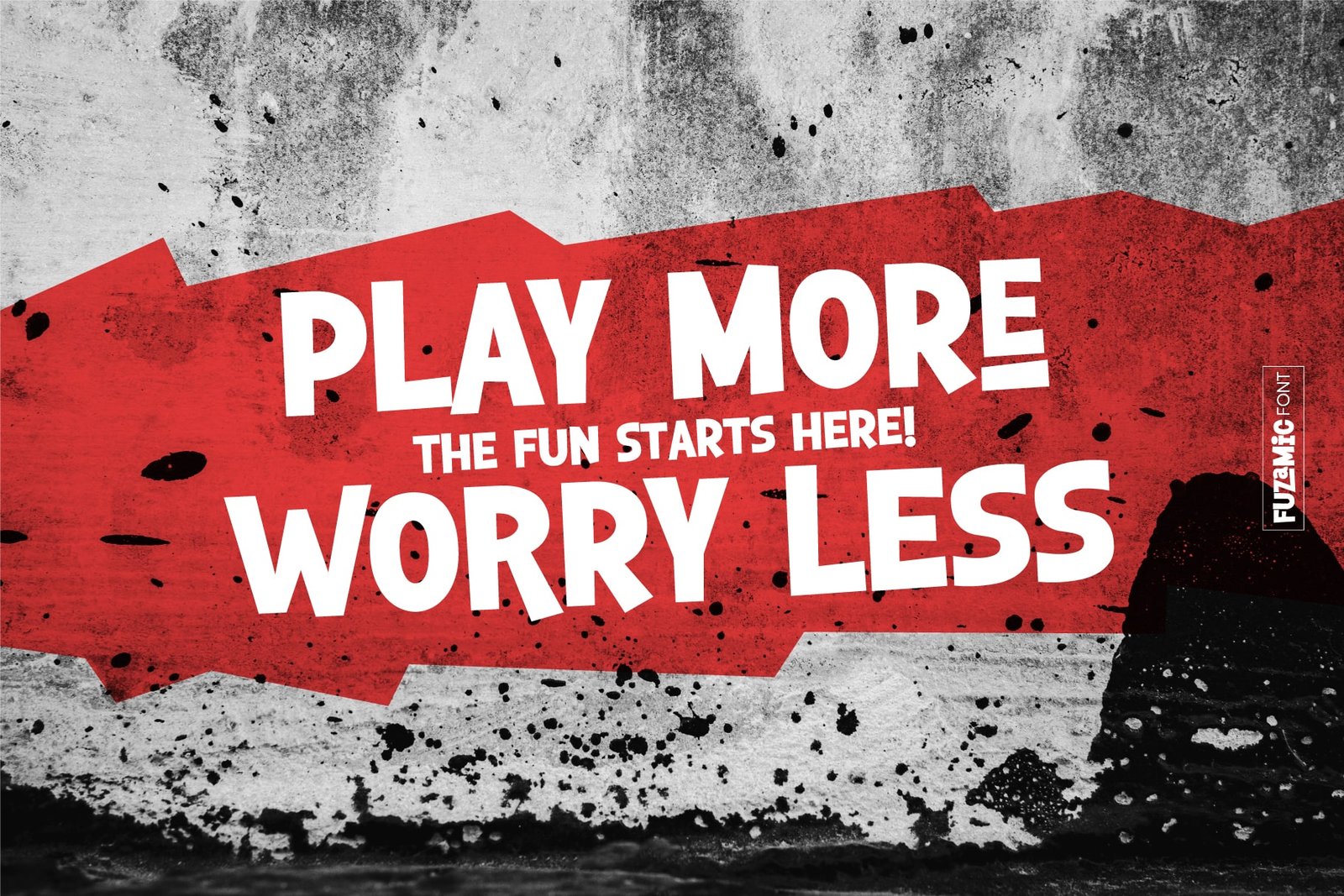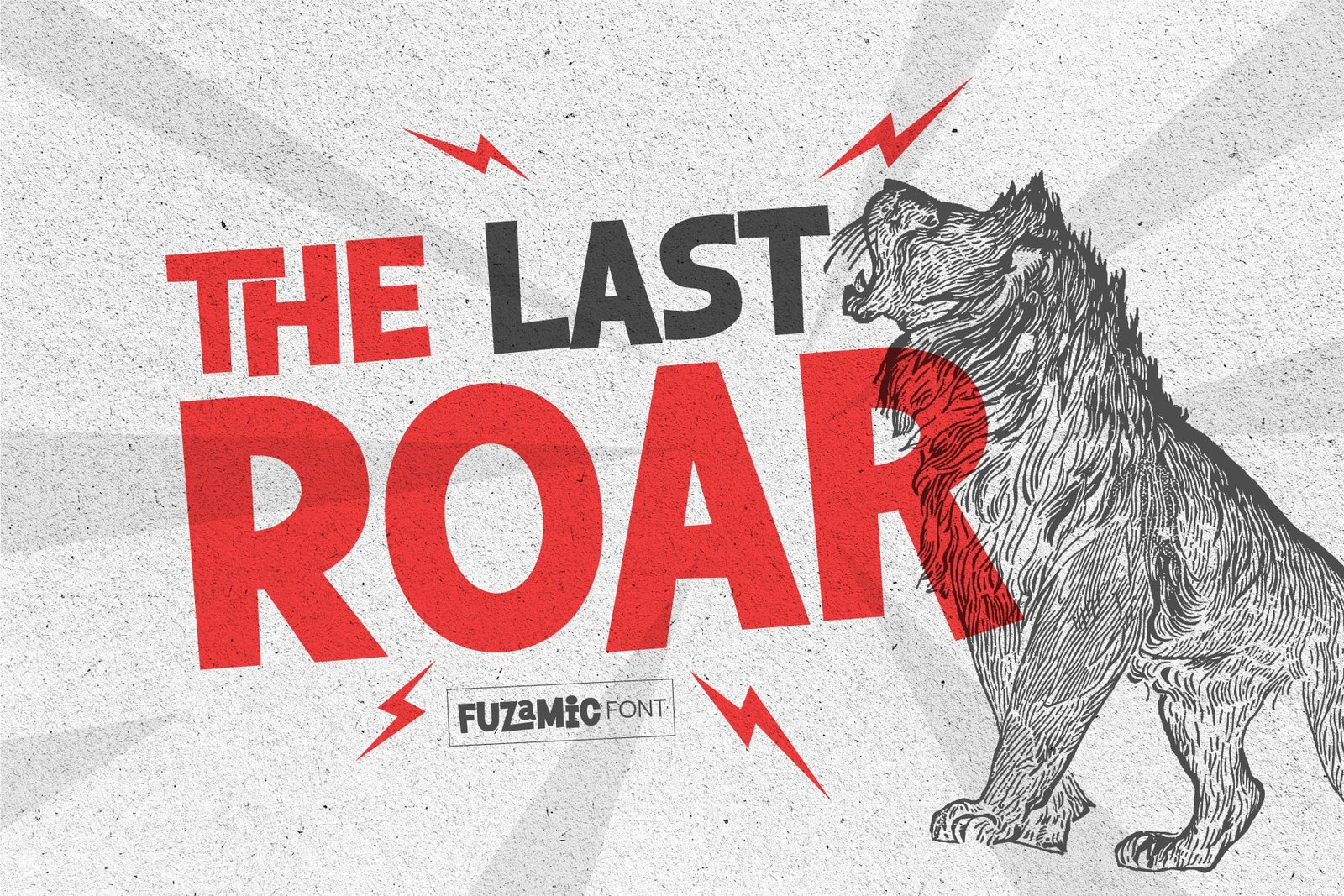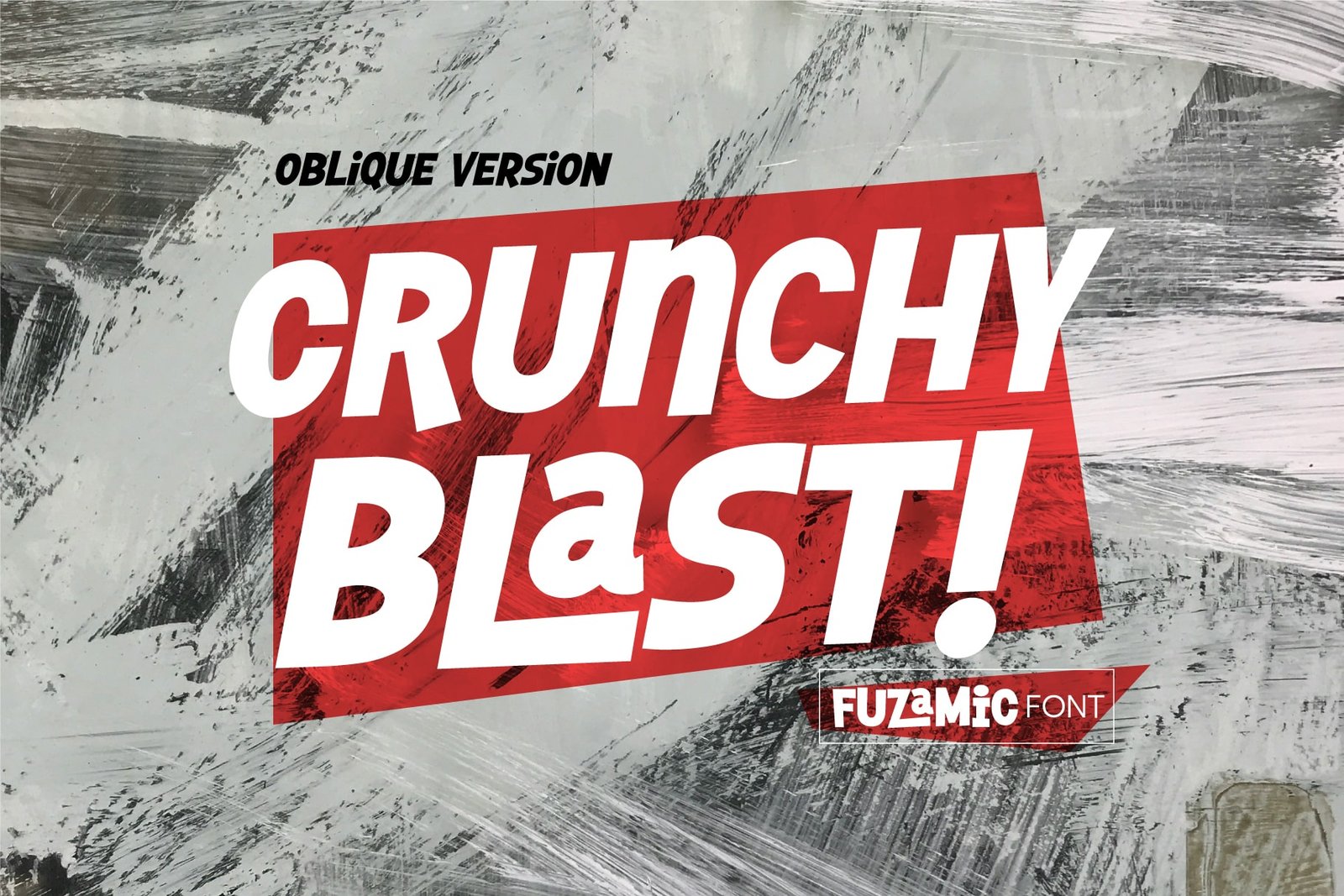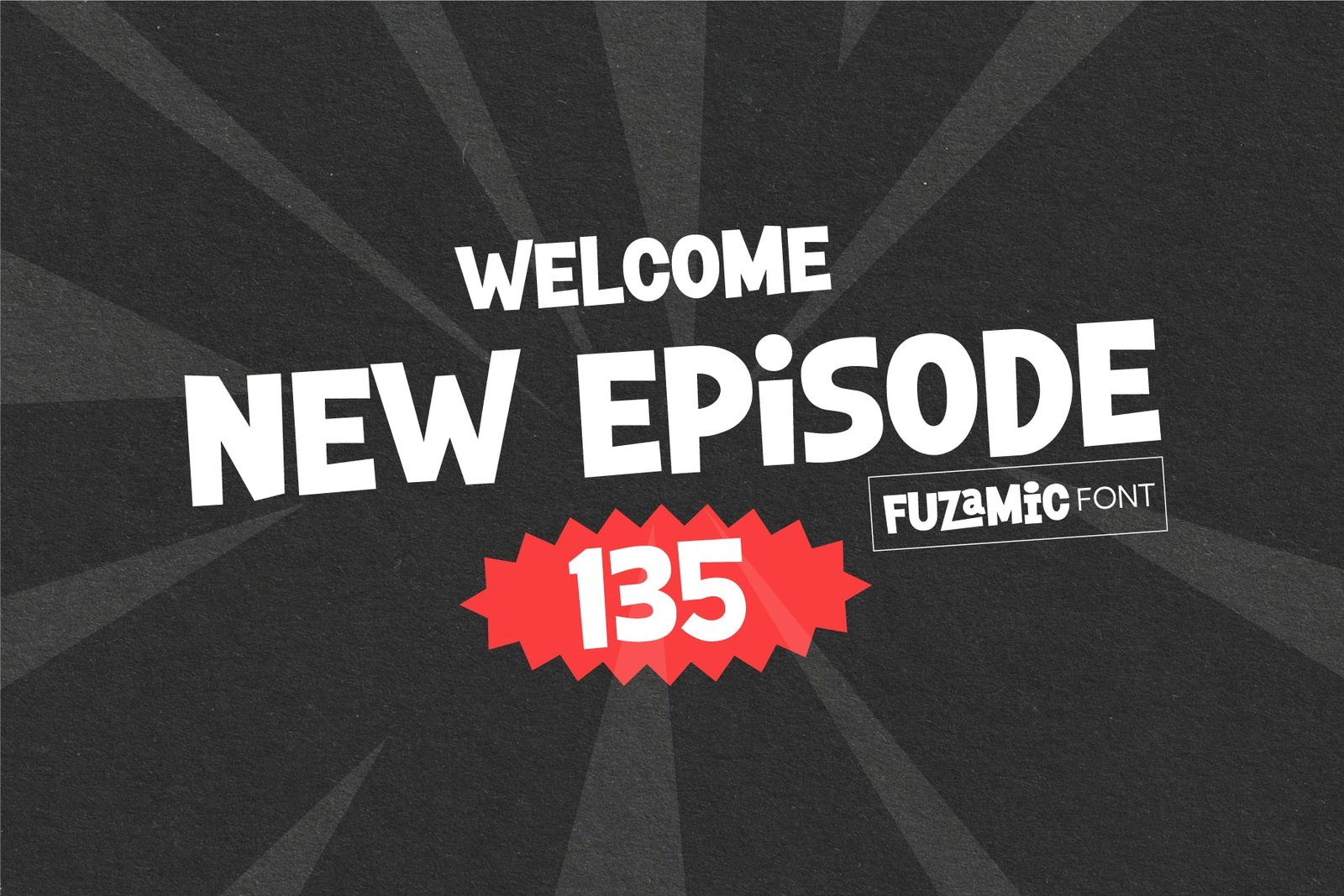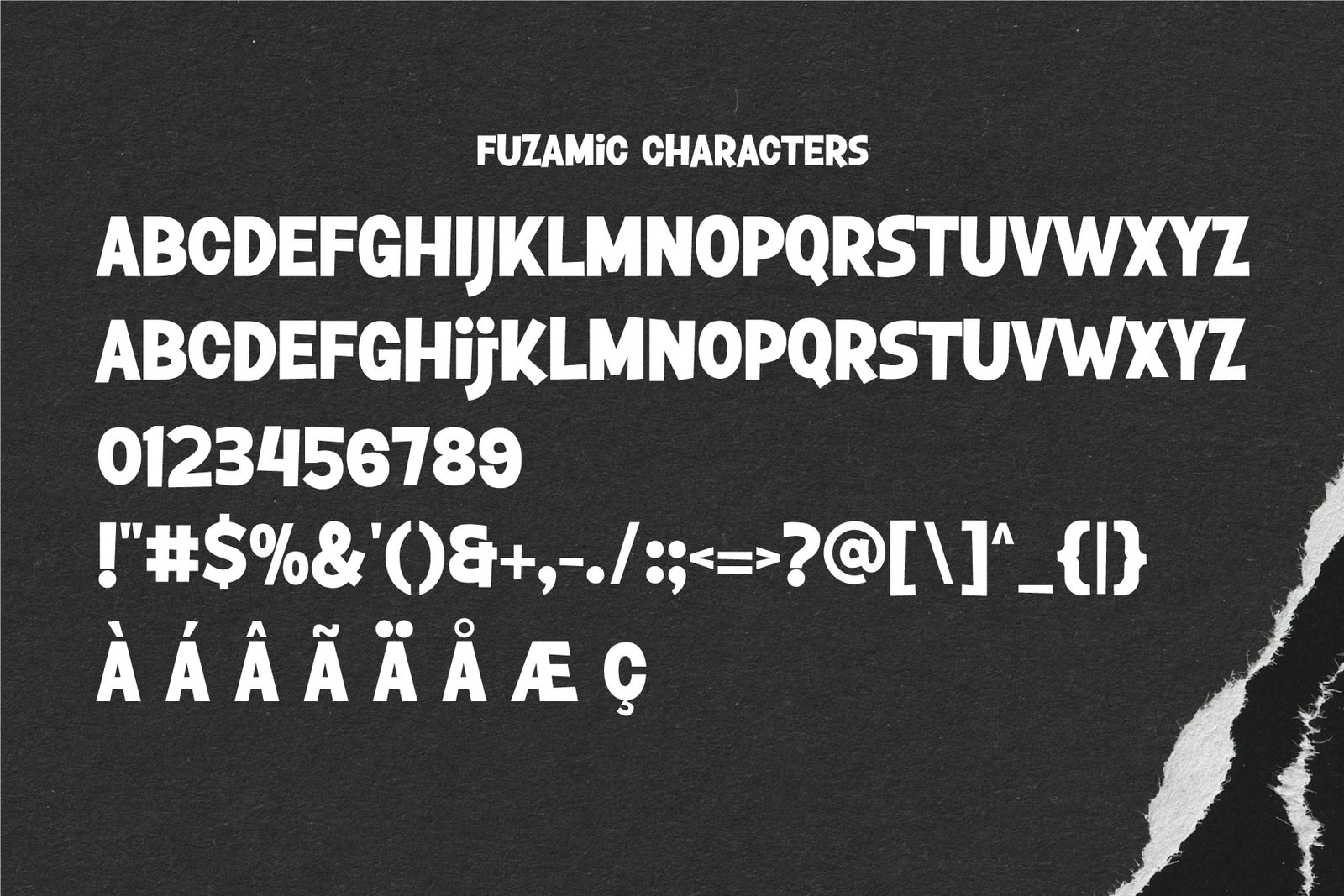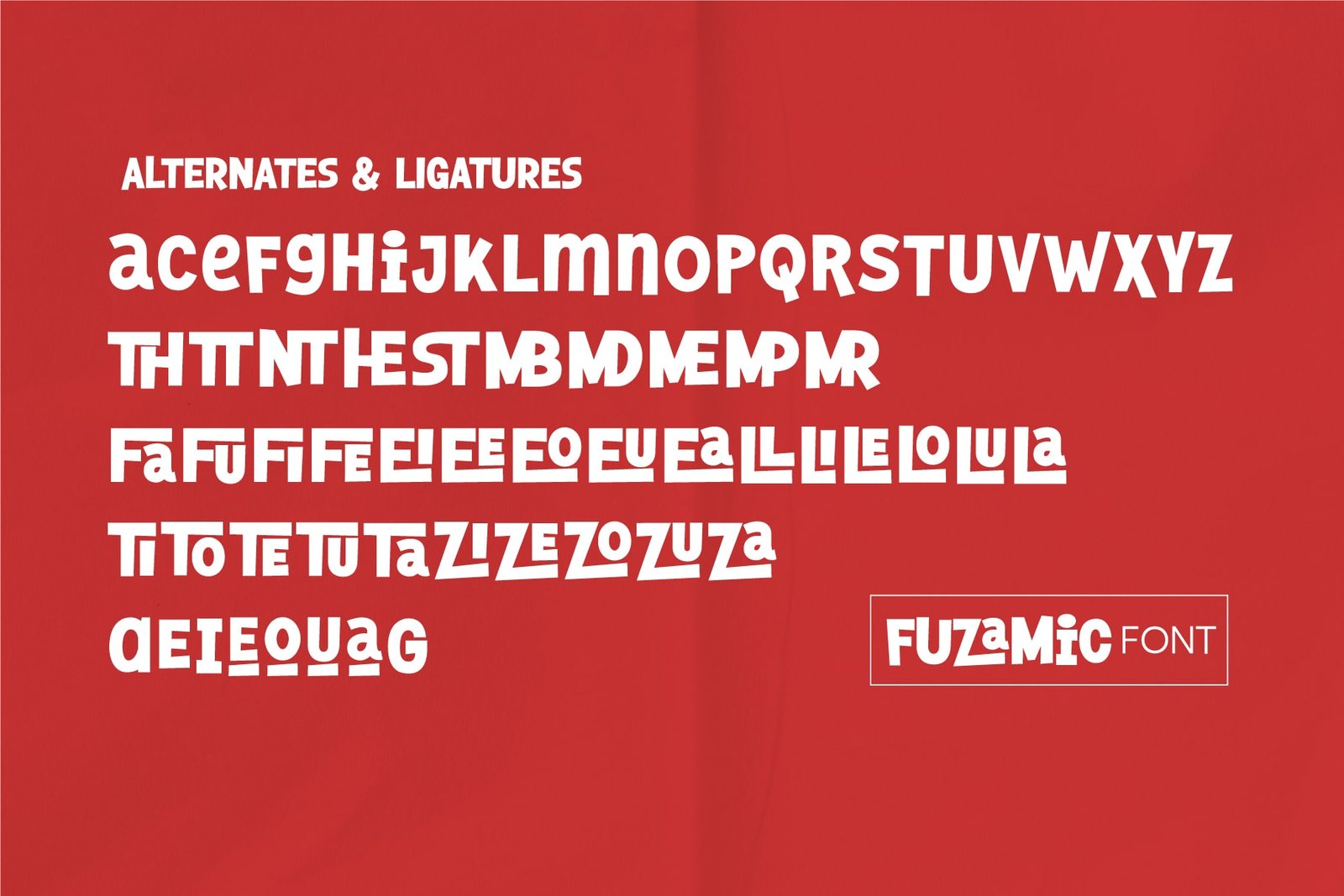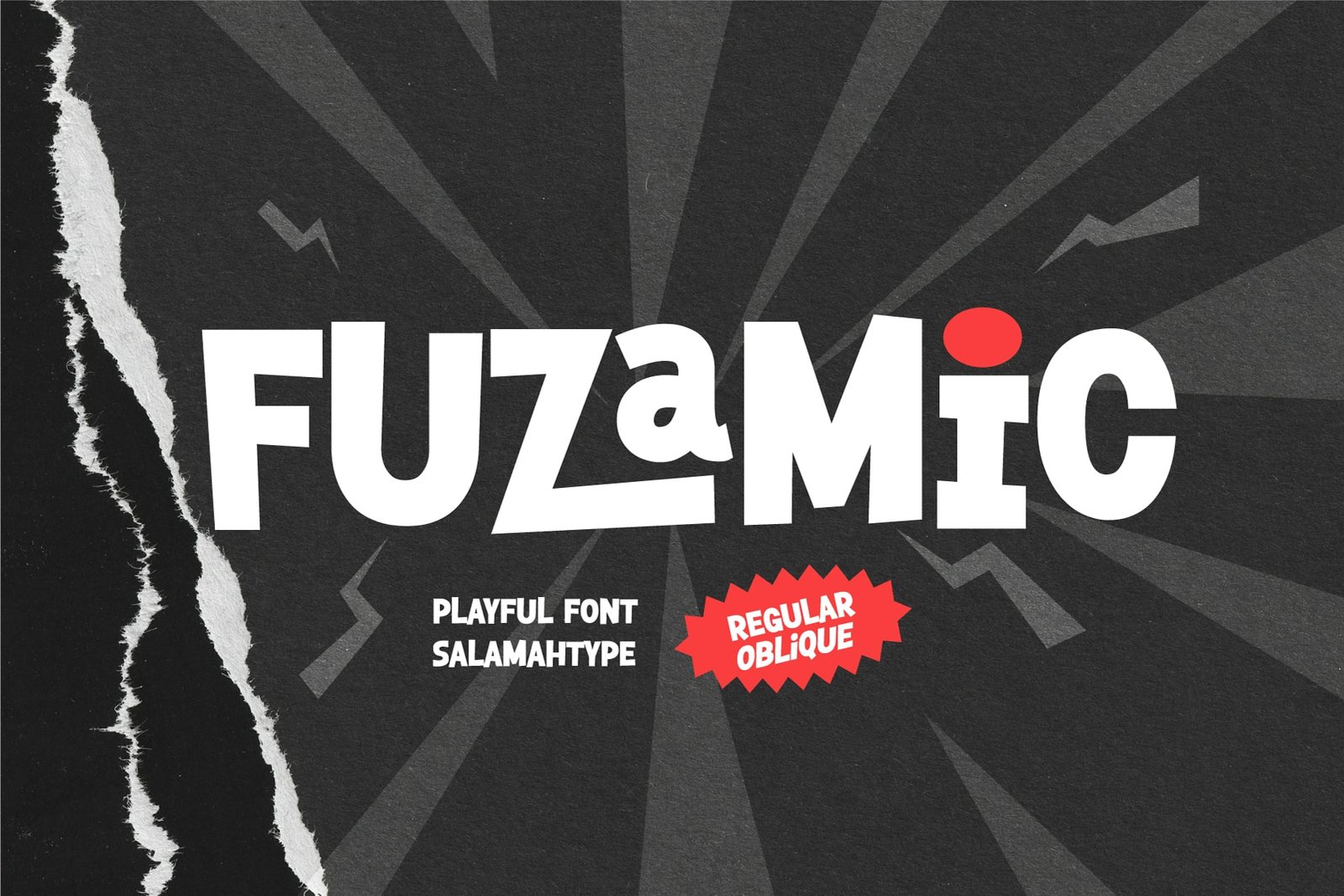
- Fuzamic – Playful Comic Font
Fuzamic is a fun and playful comic-style font designed to bring joy and personality to your creative projects. Inspired by the energetic look of comic books and hand-drawn lettering, this typeface captures a cheerful and friendly vibe that makes every word come alive!
Fuzamic includes uppercase and lowercase letters with unique shapes, giving you endless possibilities for creative typography. It also comes packed with lots of alternates and ligatures, allowing you to mix and match characters for a more natural and dynamic design.
This font supports multilingual characters, making it perfect for global projects that need both style and versatility.
Whether you’re designing a comic title, kids’ brand, poster, t-shirt, packaging, or YouTube thumbnail, Fuzamic adds that perfect pop of fun and energy. Its bouncy style and comic-inspired personality make it stand out in any design setting.
✨ Features:
Uppercase & Lowercase Letters
Alternates & Ligatures
Multilingual Support
Perfect For:
Comic Book Titles
Playful Logos
Kids’ Branding
Posters & Stickers
Merchandise & Apparel Design
Social Media Graphics
Bring your designs to life with Fuzamic – the playful font that adds comic charm and cheerful energy to every project!